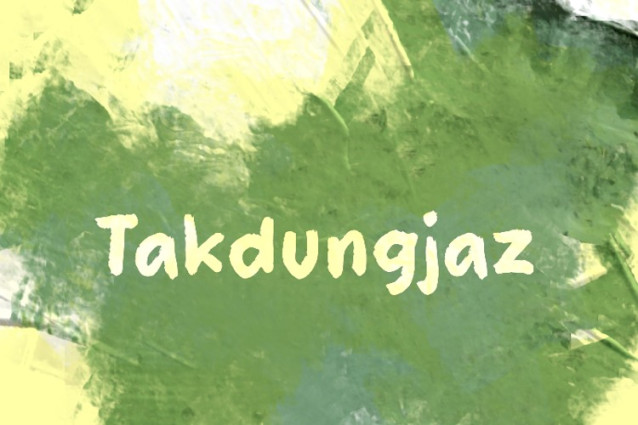
Takdungjaz Font
Takdungjaz Font is a unique display font created with brush strokes. It is suitable for various creations such as comics, magazines, websites, and others.